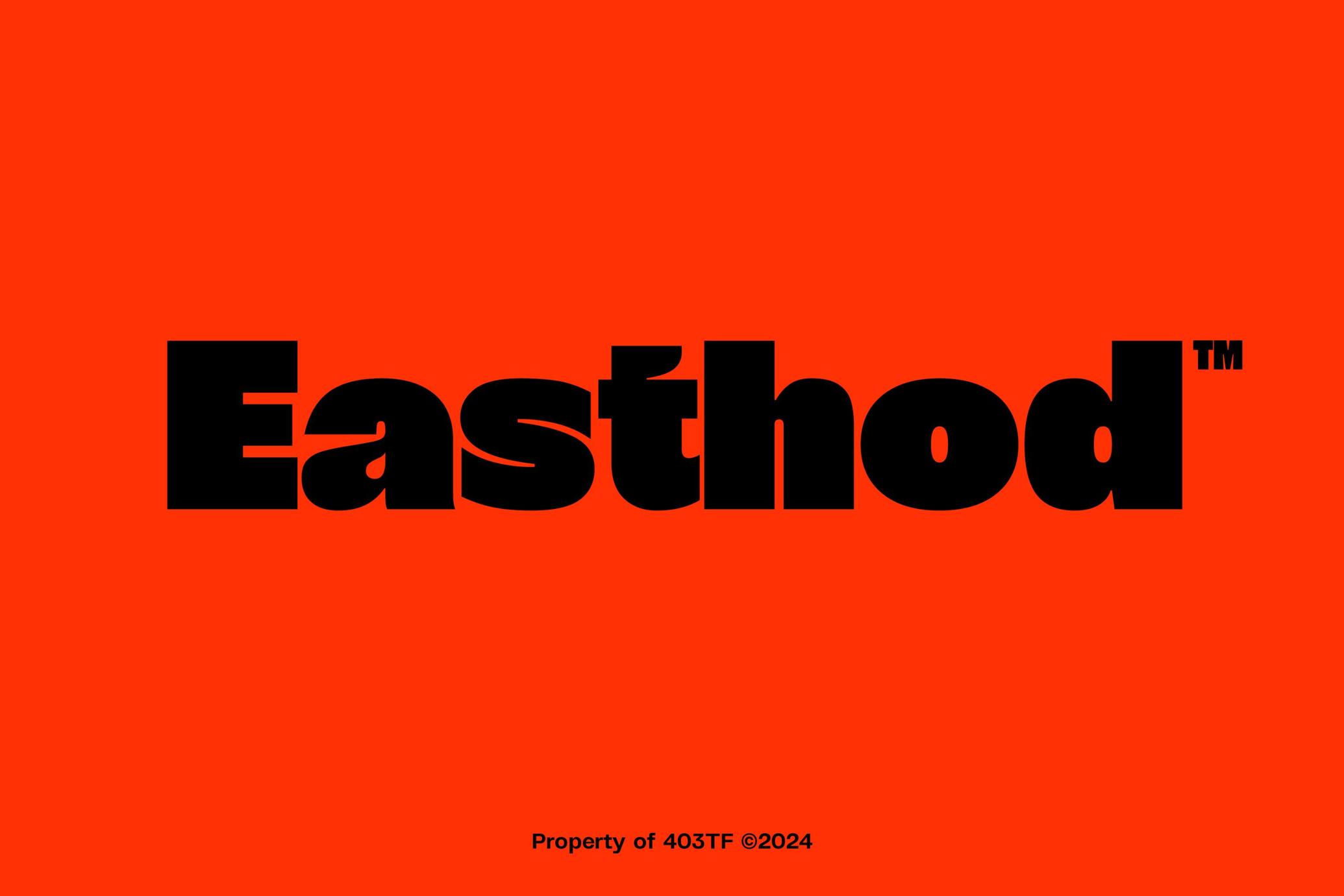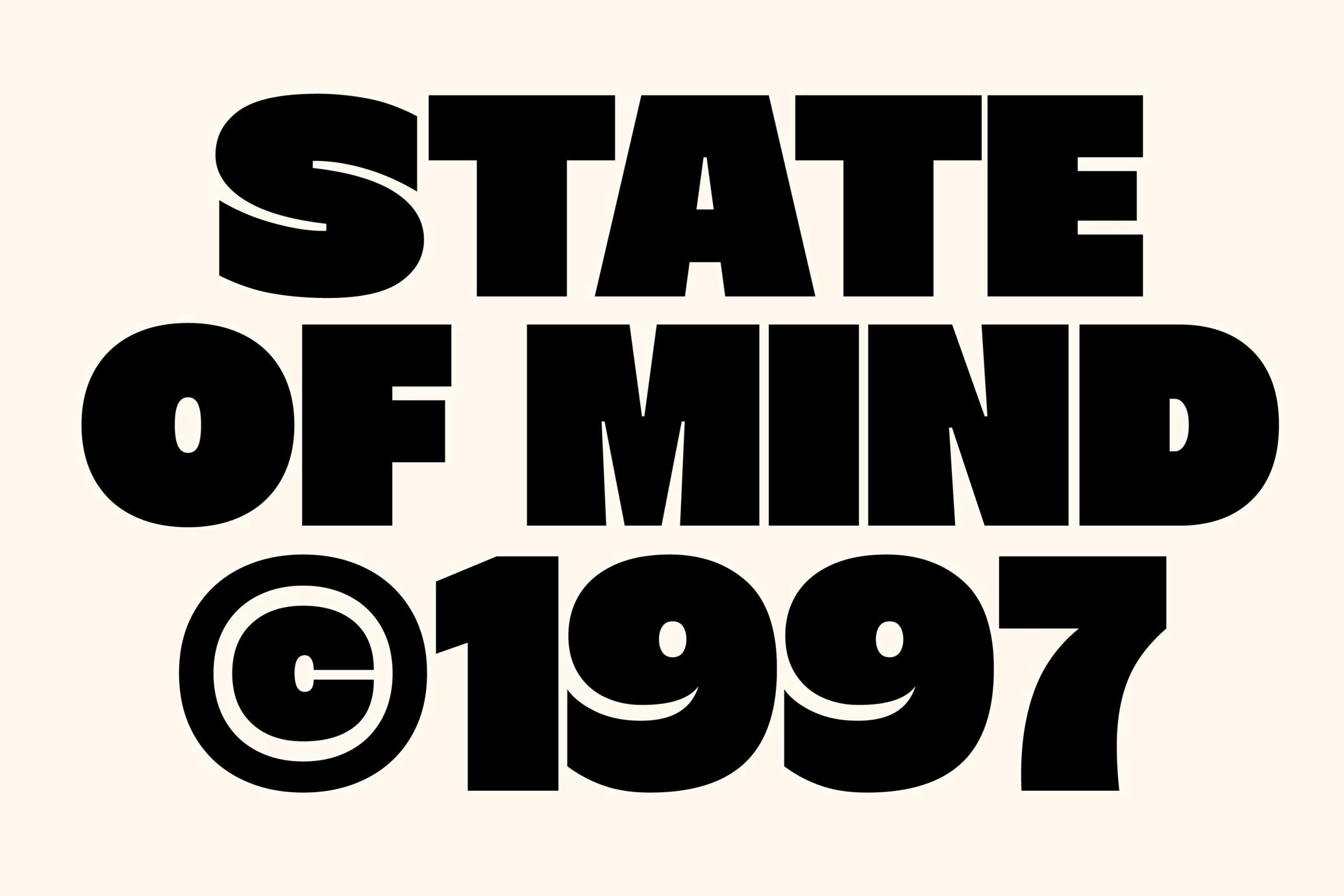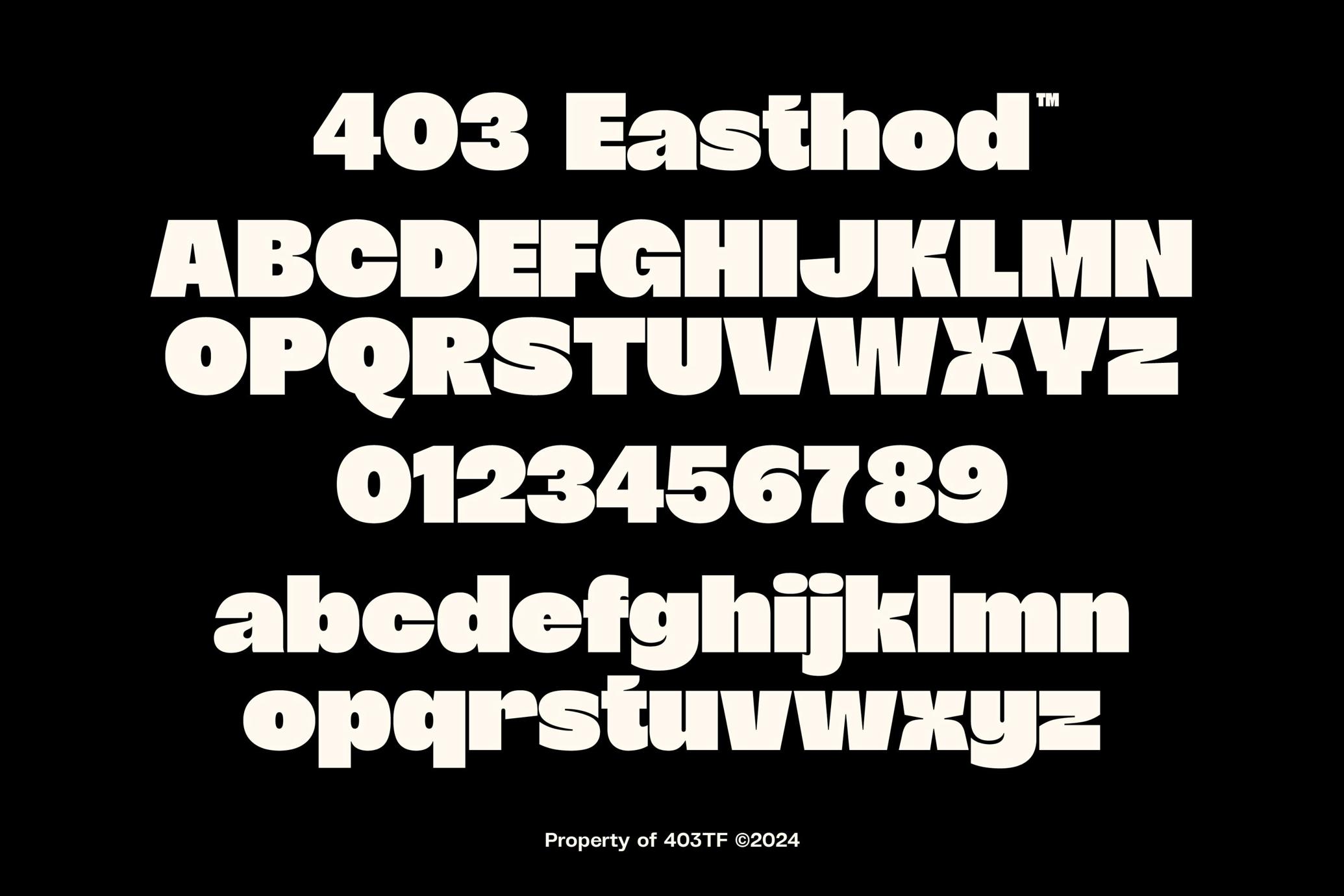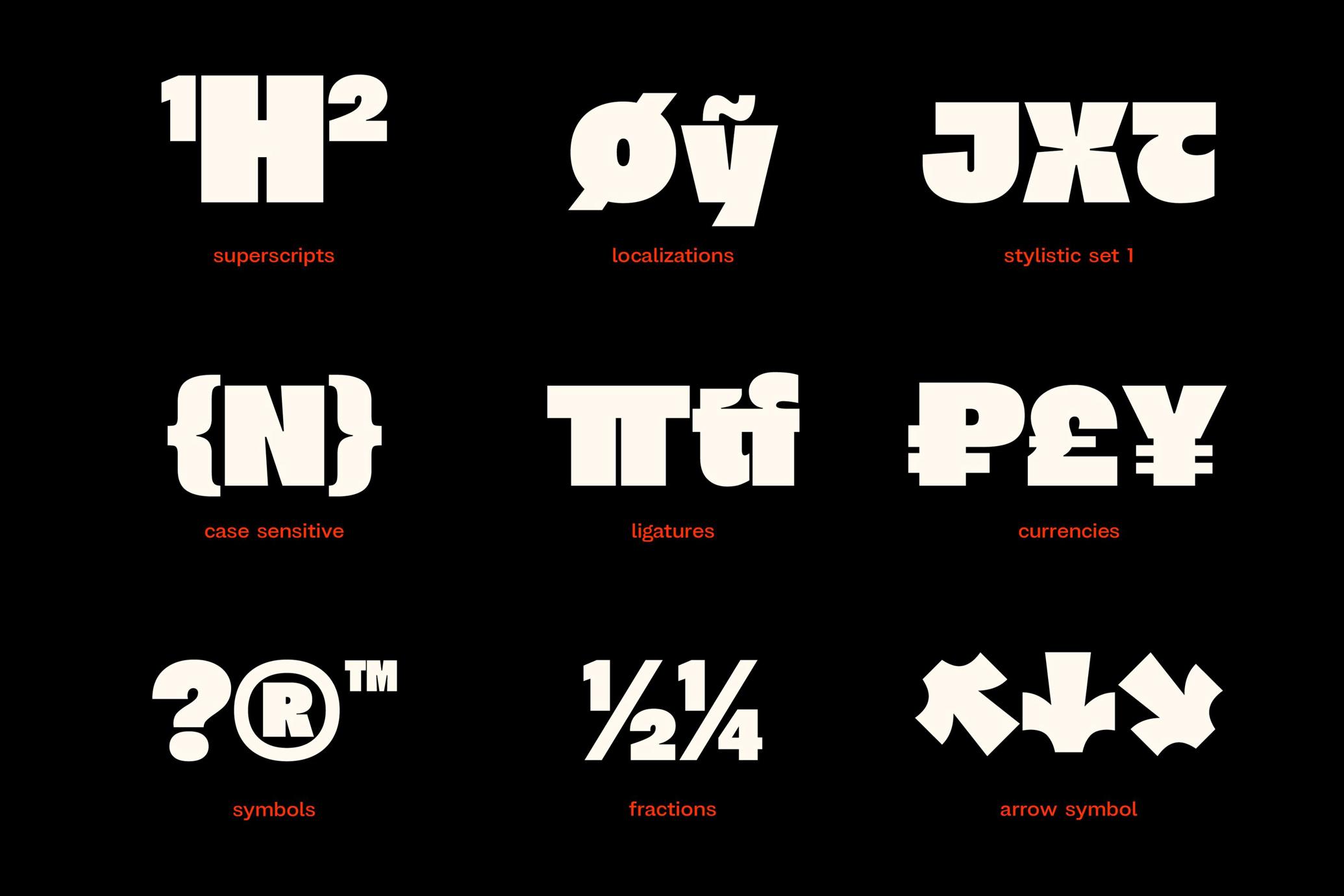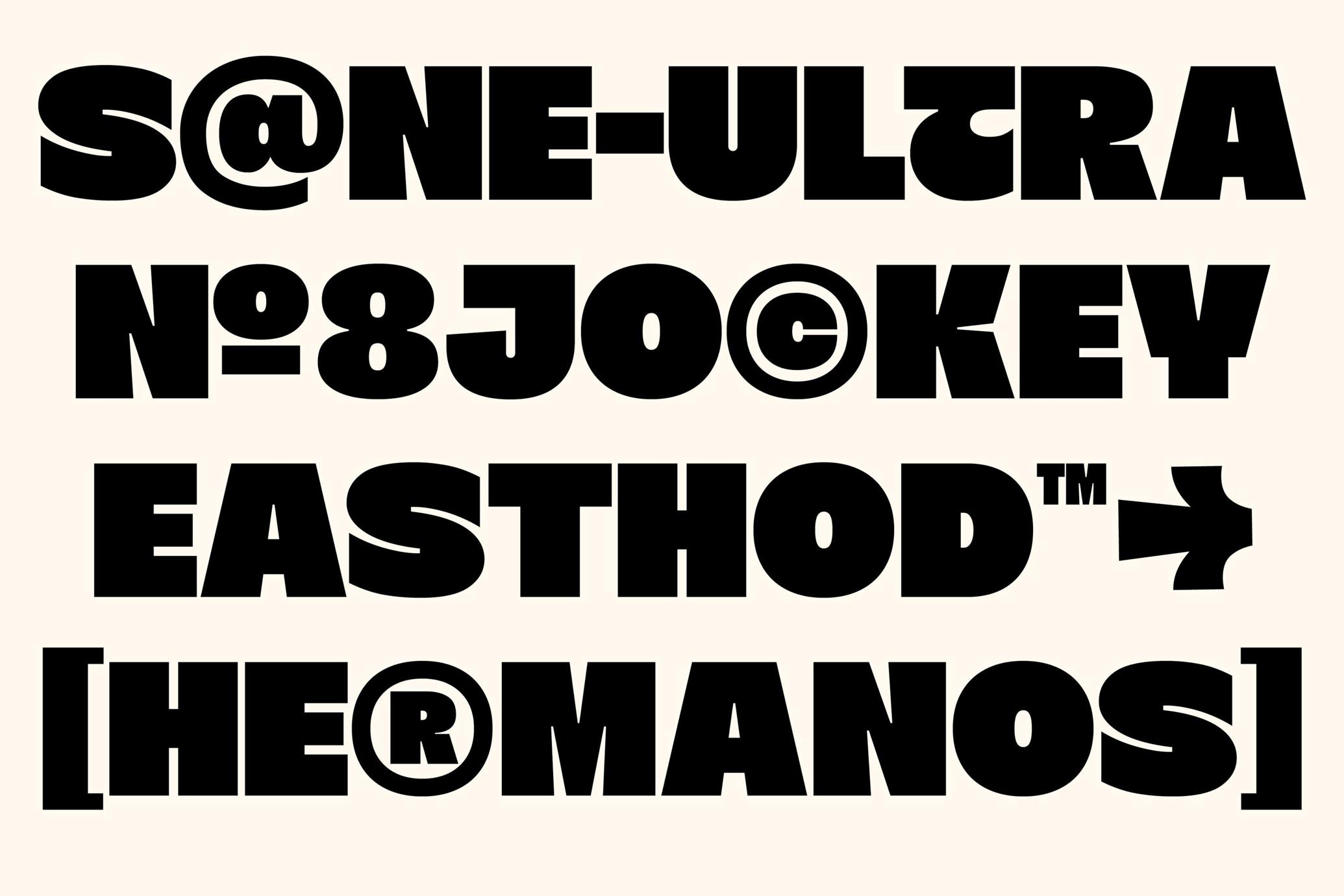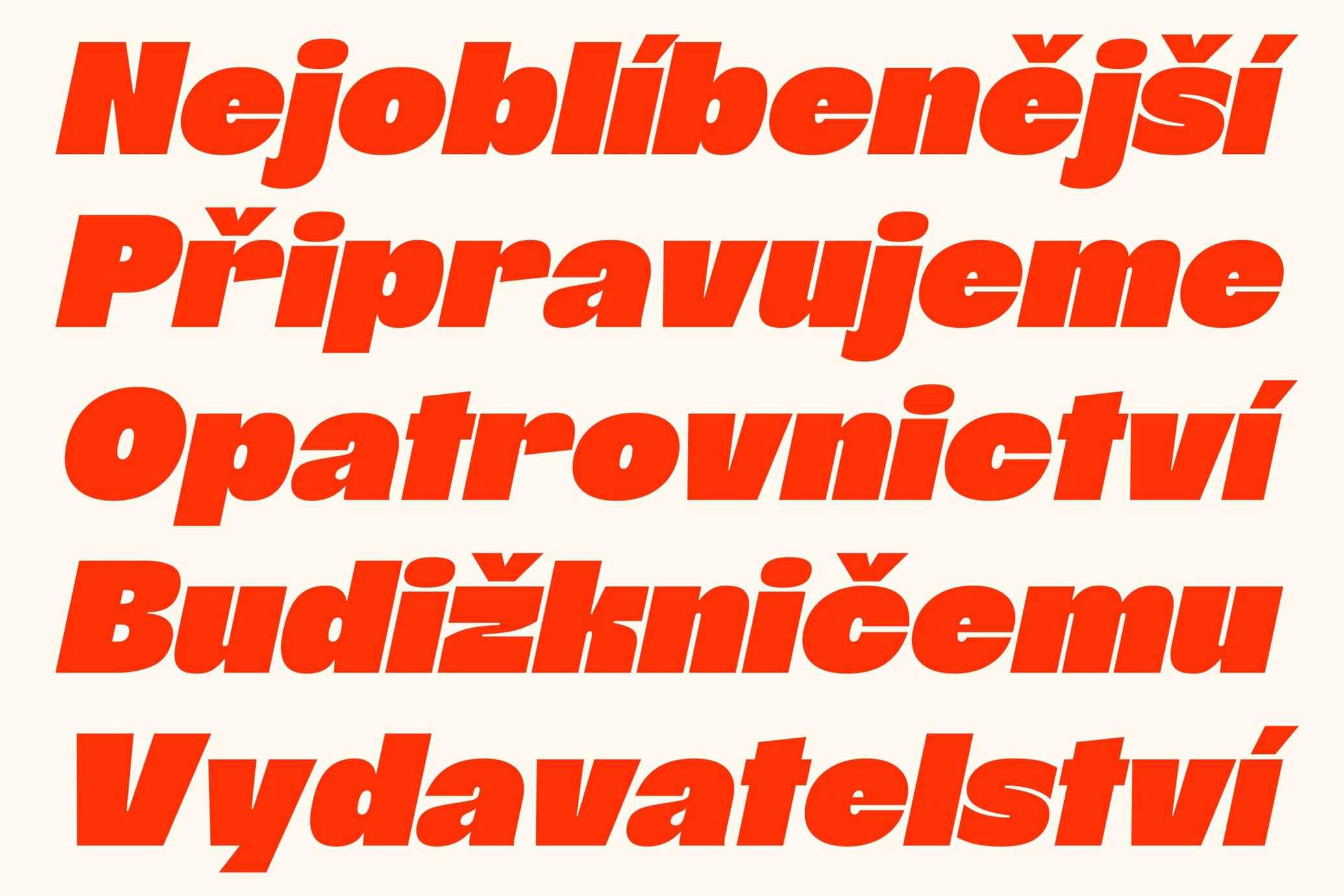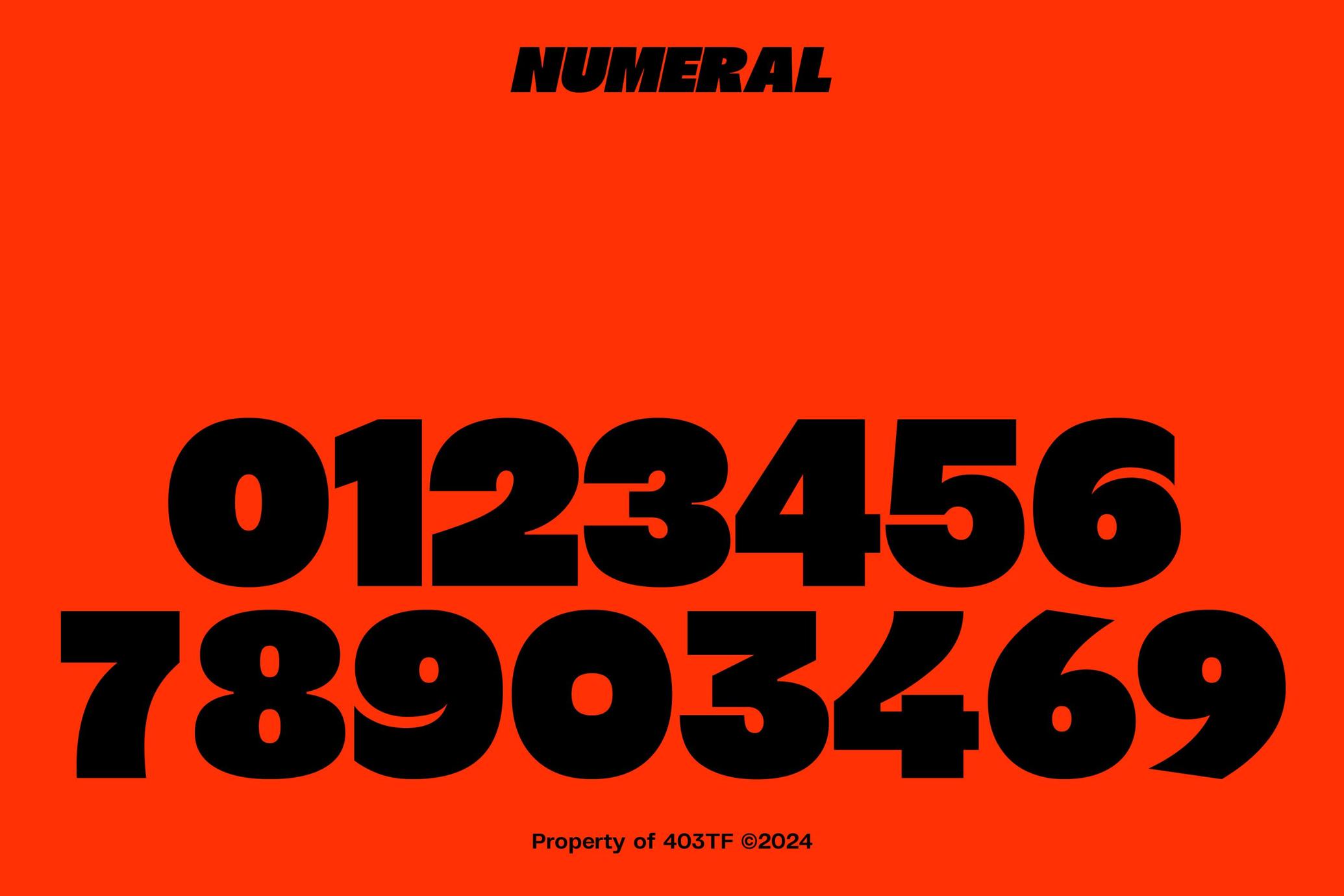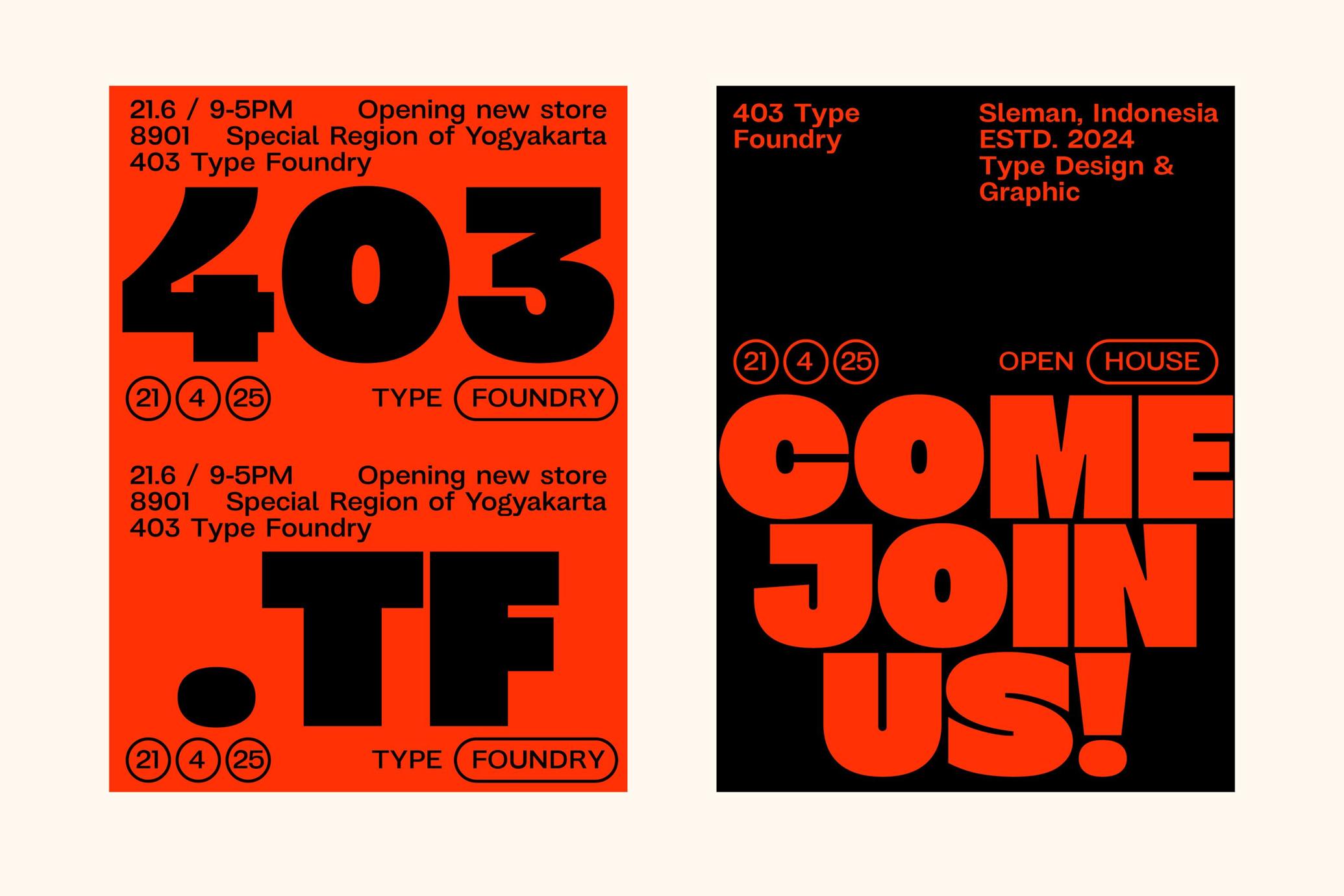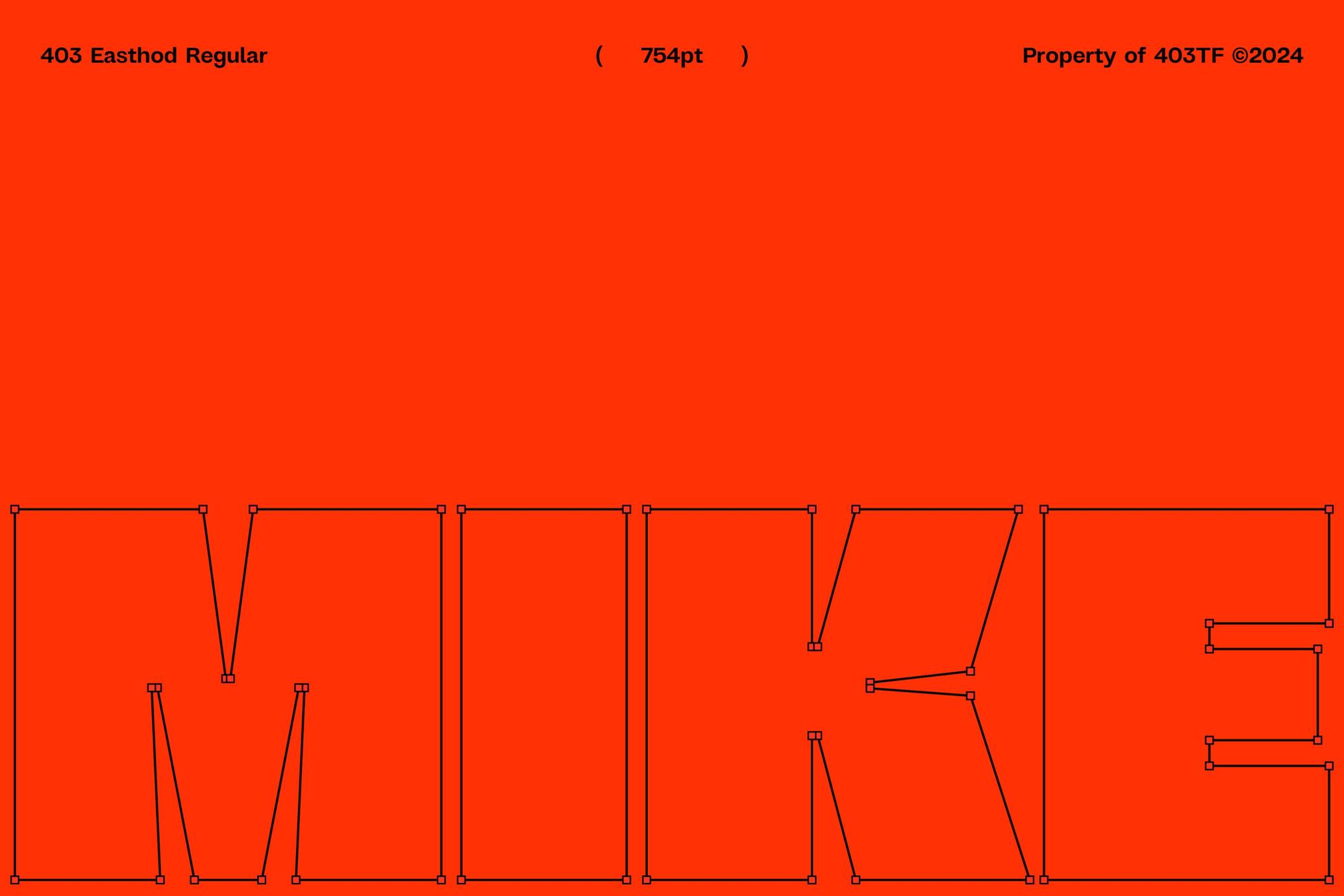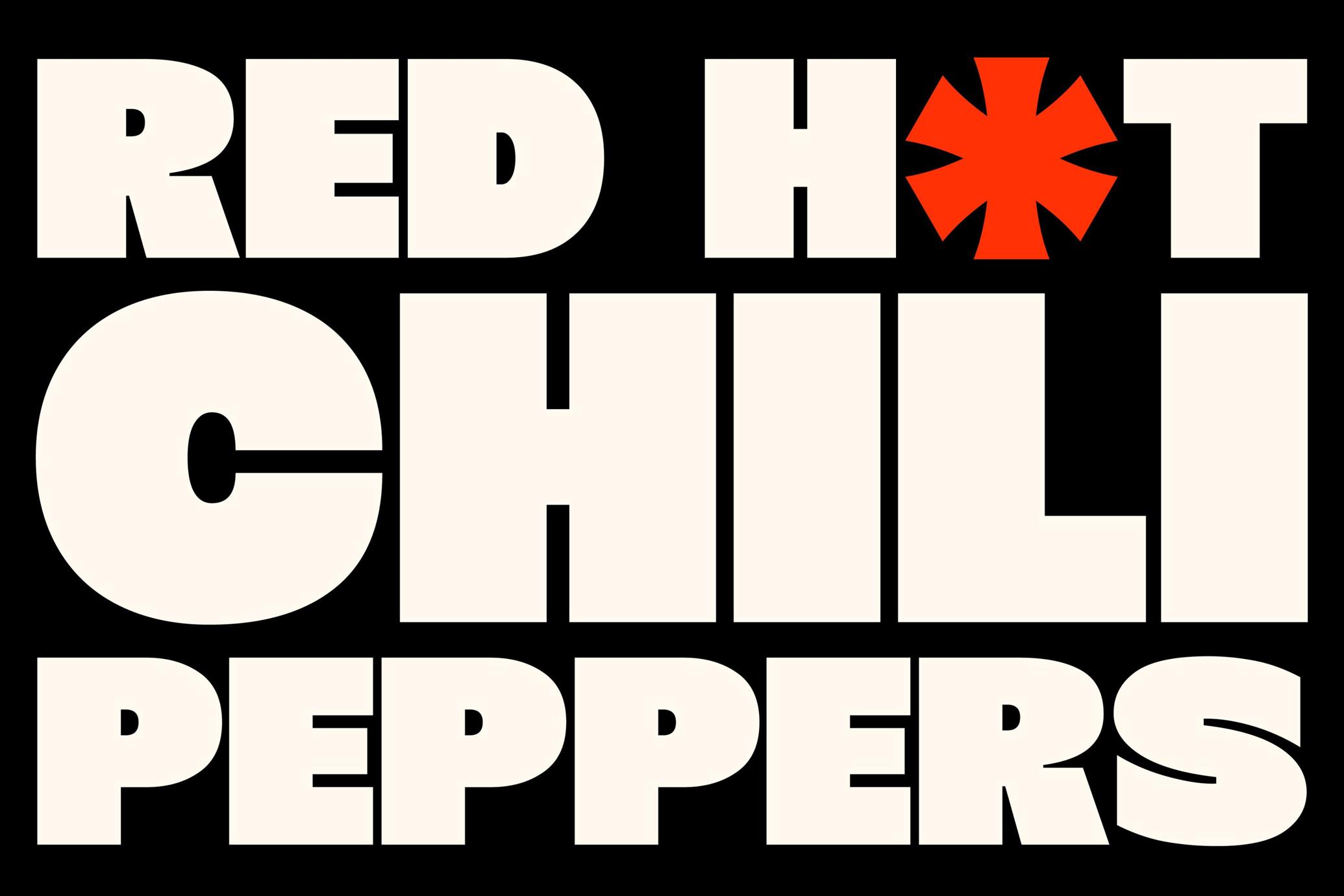
403 Easthod Sans
When opening a film with a single frame, you need a typeface that punches. Not whispers. One that stares back, dead-on, with conviction. 403 Easthod does just that. It’s heavy without being rigid, rounded without going soft — like casting a lead who can play menace and charm in the same breath. With regular and slanted cuts, plus support for every punctuation, symbol, and global nuance you might throw at it.
The strokes are thick, the counters tight, but nothing feels overacted. 403 Easthod will hover over noir title cards, fashion brand marks, or demanding client tasks. Packed with alternates, ligatures, and even arrow icons.